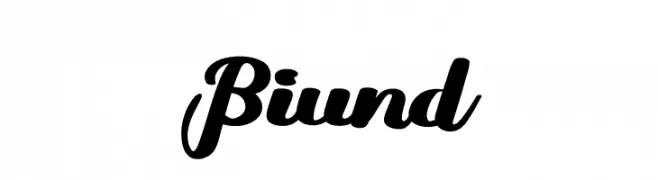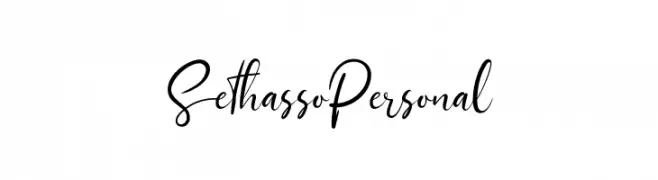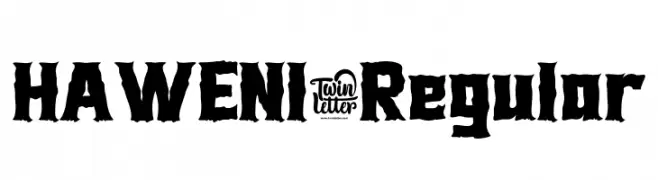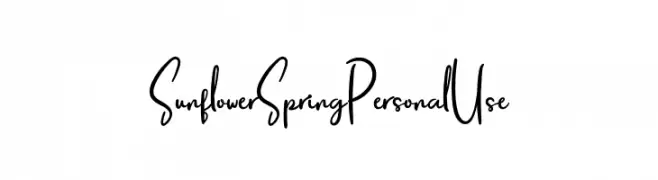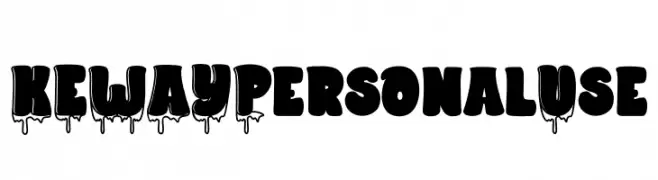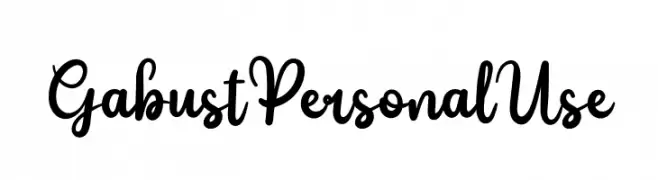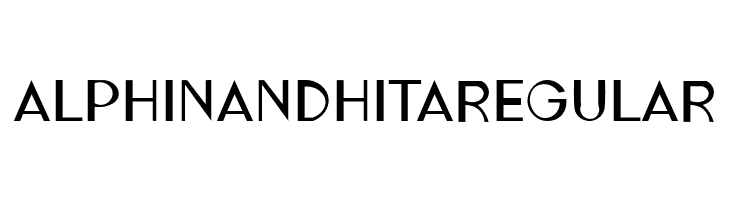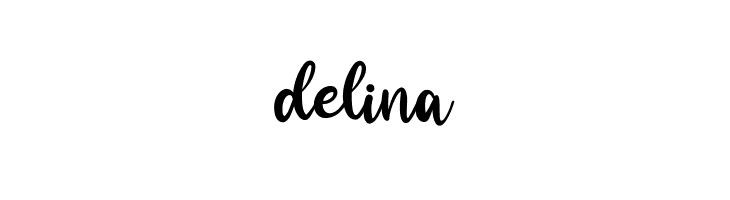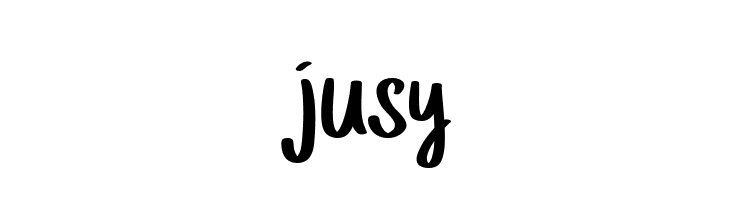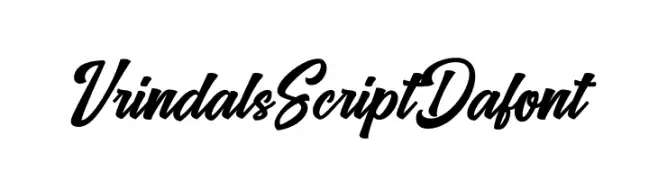
A bold, expressive script font with fluid, dynamic strokes.
A bold, cursive font with smooth, flowing lines and a playful, energetic style.
A playful, handwritten font with smooth curves and a casual style.
A modern, handwritten font with elegant, flowing cursive characters.
A bold, textured font with a rugged, hand-drawn appearance.
A playful, handwritten font with a whimsical and elegant style.
A bold, playful font with a dripping effect on uppercase letters, ideal for decorative use.
A playful and elegant script font with a handwritten style.
A dynamic and edgy font with sharp, elongated strokes and a bold appearance.
A bold, playful font with chunky, dynamic letters and a retro vibe.